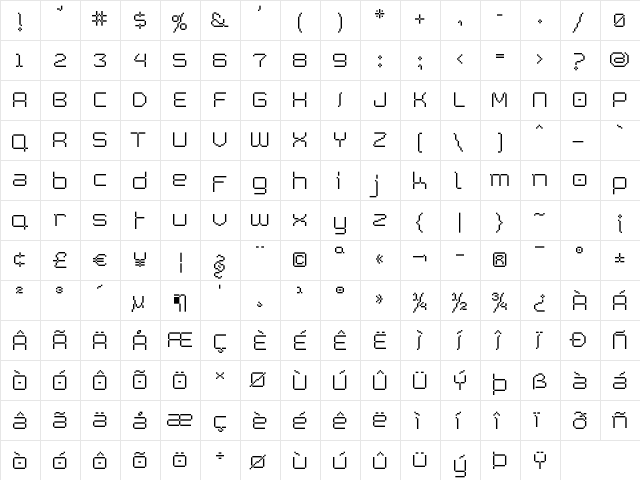
PixetlRegular Regular
Design Context for PixetlRegular Typeface
PixetlRegular offers clean, dependable letterforms without strong stylistic allegiance, making it a practical choice for designers who need flexibility.